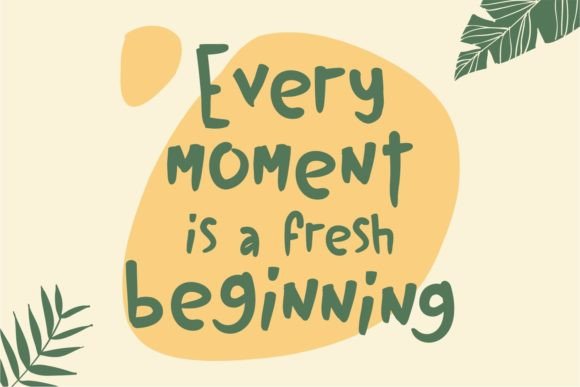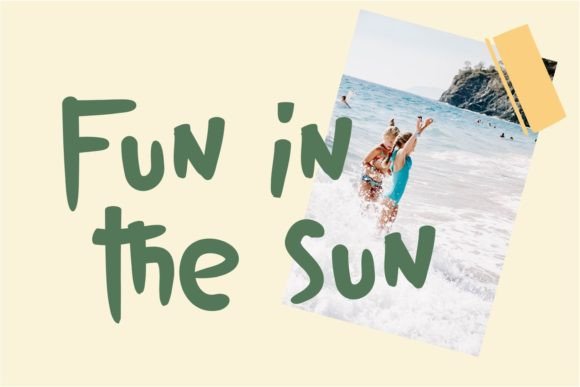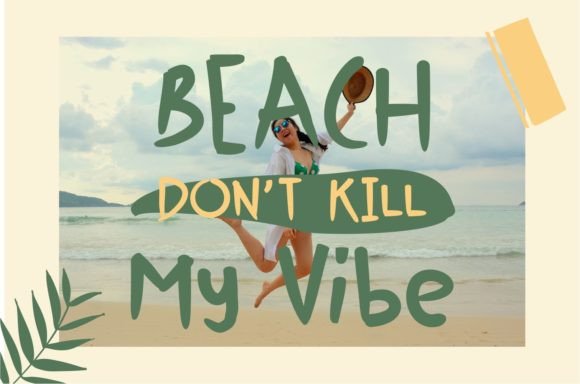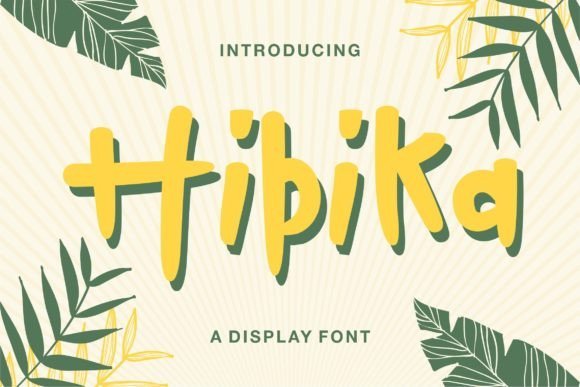
Introduction to Hibika Font
Hibika is a whimsical display font that features playful and irregular letterforms.
With its quirky and charming style, it’s perfect for adding a touch of fun to your designs Use it to create unique headlines or logos that will stand out and grab attention.
Key Features of Hibika Font
Why Choose Hibika Font?